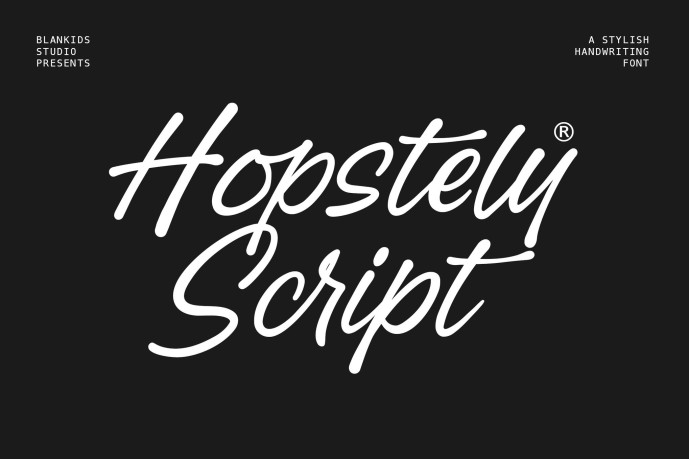
Hopstely Script Font
Hopstely Script Font is a modern handwritten script font designed to bring elegance, personality, and natural flow into your creative projects. Carefully crafted with smooth curves and authentic pen strokes, this font delivers a perfect balance between stylish, casual, and professional looks.
Hopstely is created to make your typography feel warm, friendly, and eye-catching while still maintaining excellent readability. Whether you’re designing branding materials, social media content, or printed products, Hopstely adds a beautiful handwritten touch that instantly elevates your design.